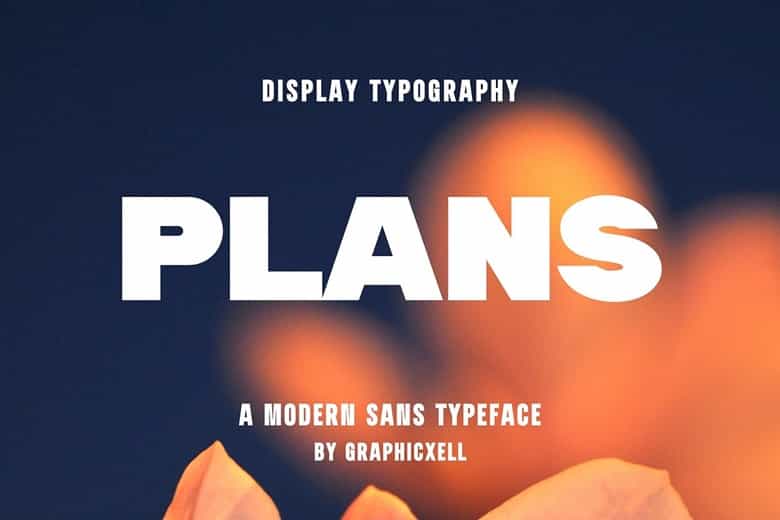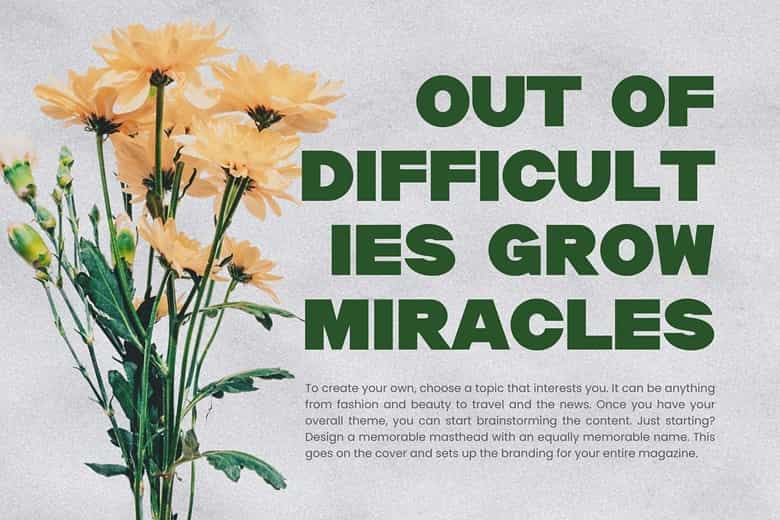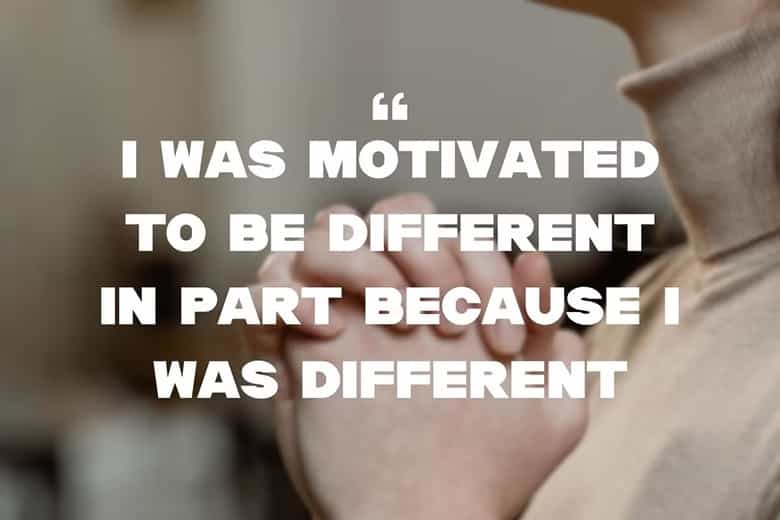
Plans is an elegant looks modern design bold sans serif font, it is based on the simplest logo that can be used for creating templates, brochures, videos, branding, logos, invitations, layout design, elegant crafting, beauty design and other.